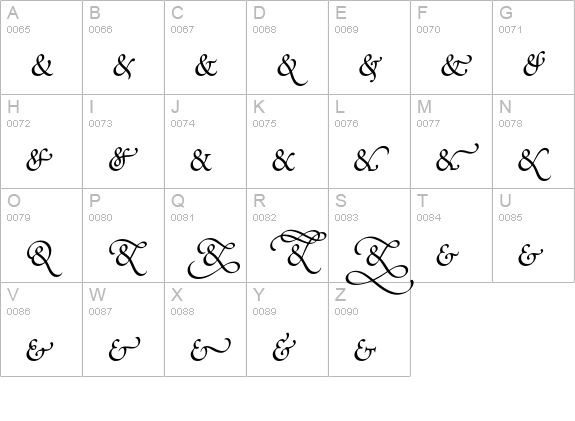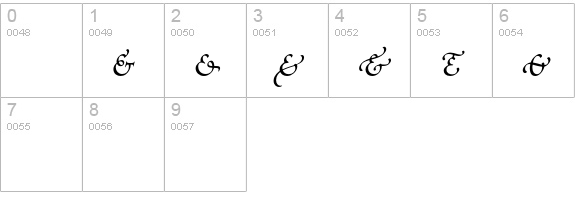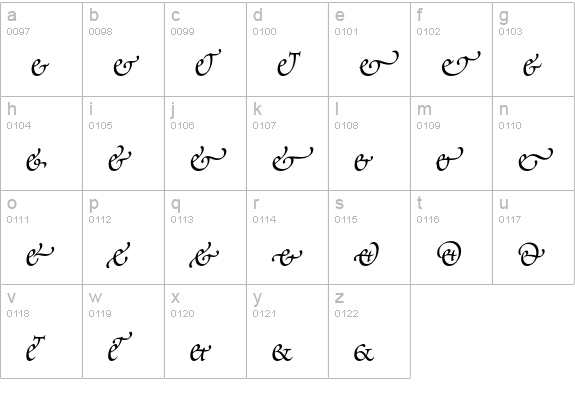
Poetica Supp Ampersands Font Details
Poetica Supp Ampersands font is a stunning and elegant typeface that adds a touch of sophistication to any design project. With its intricate details and graceful curves, this font is perfect for creating poetic and artistic compositions. The ornate ampersands in this font set it apart, making it a unique choice for creative projects. Best of all, Poetica Supp Ampersands font is available for free download at FontsMarket.com. Whether you're working on a wedding invitation, a branding project, or a piece of fine art, this font will elevate your work and bring a touch of beauty to your design. Download it today and let your creativity soar with Poetica Supp Ampersands font.